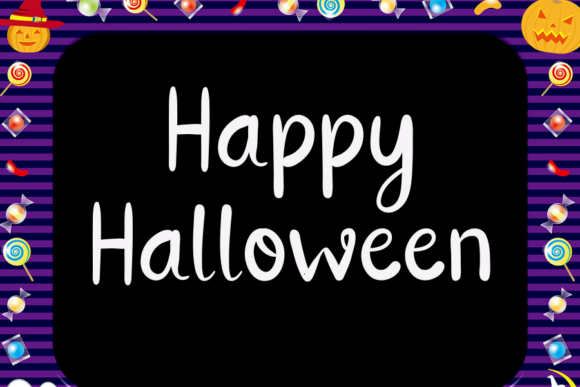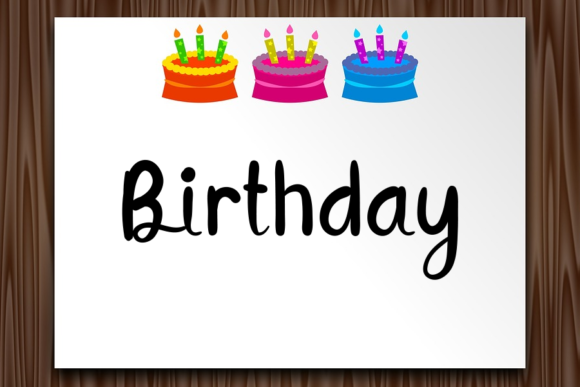
Night Mare Font
db-ku.com - Script & Handwritten -- Night Mare is a sweet and friendly handwritten font. Its natural and unique style makes it incredibly fitting to a large pool of designs. The only limit is your imagination!